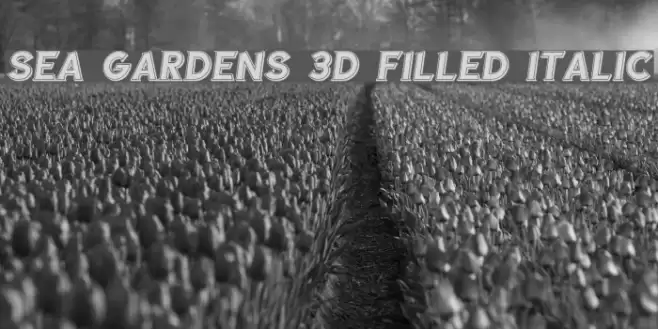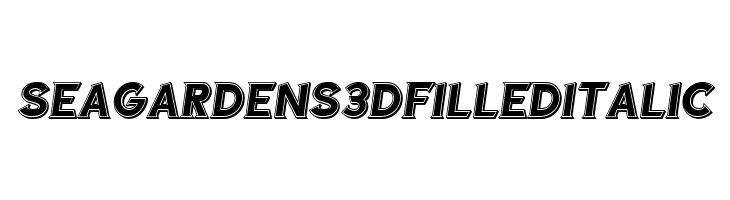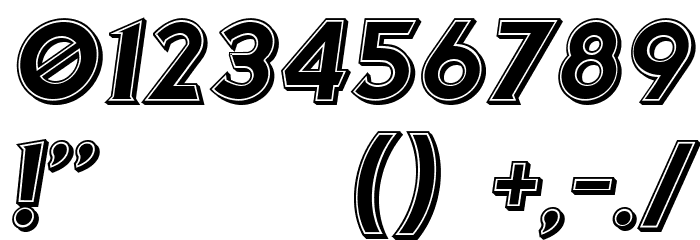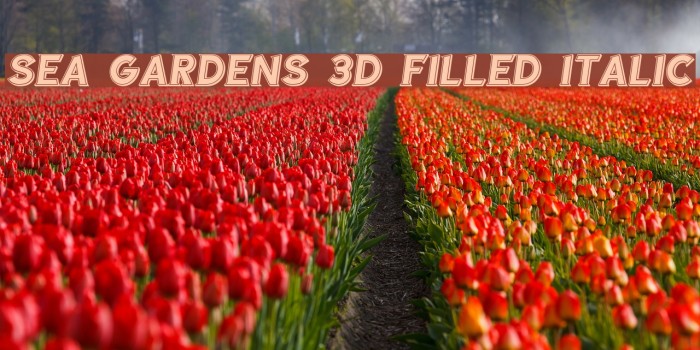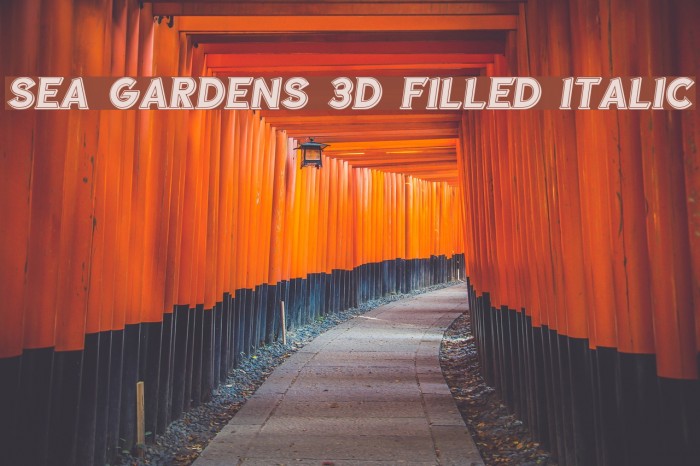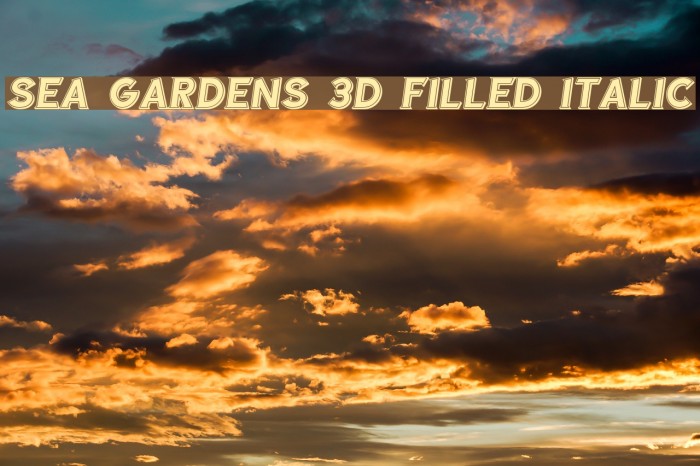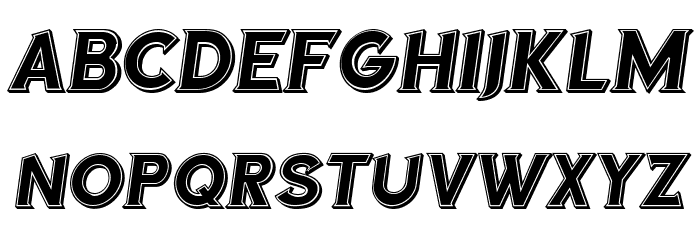
Sea Gardens 3D Filled Italic Font
Sea Gardens 3D Filled Italic Description
This font features a bold, three-dimensional style with a filled appearance, giving it a striking and impactful look. The letters are italicized, adding a dynamic and forward-leaning effect. Each character is outlined, enhancing the 3D effect and making the text stand out prominently. The font maintains a consistent thickness throughout, contributing to its bold and robust presence. The spacing between characters is normal, ensuring readability while maintaining its decorative appeal. This font is ideal for creating eye-catching headlines or titles that demand attention.
A bold, 3D italic font with a filled and outlined style from Uncategorized fonts.